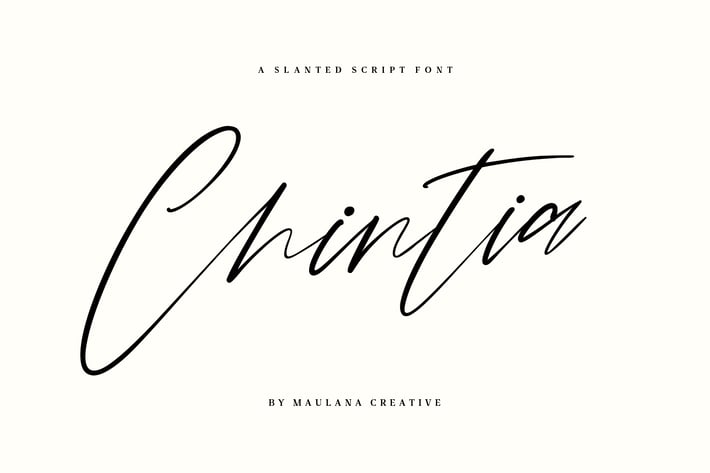
Chintia Slanted Script Brush Handmade Beauty Font
Give your designs an authentic handcrafted feel. "Chintia Slanted Script Brush" is perfectly suited to signature, stationery, logo, typography quotes, magazine or book cover, website header, clothing, branding, packaging design and more.